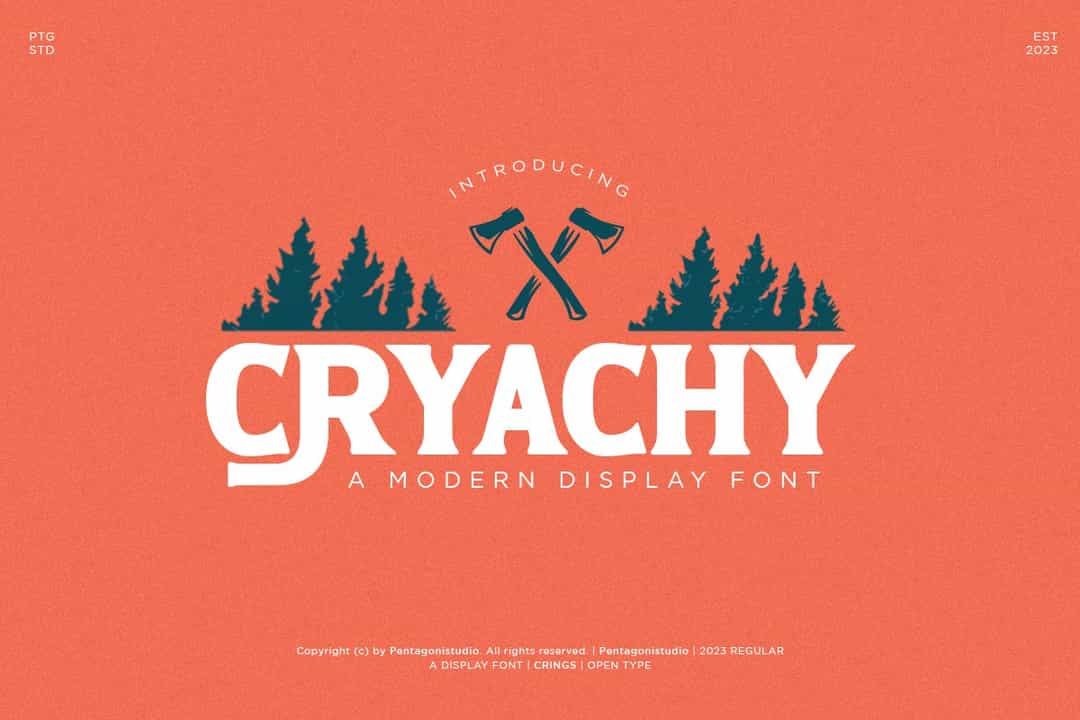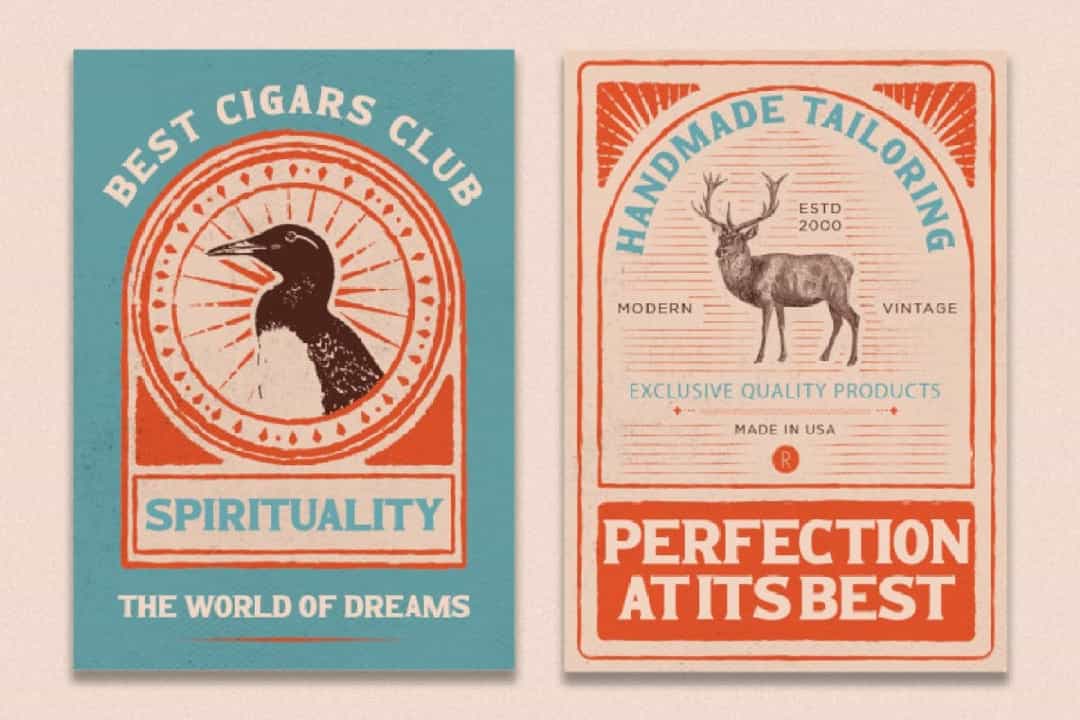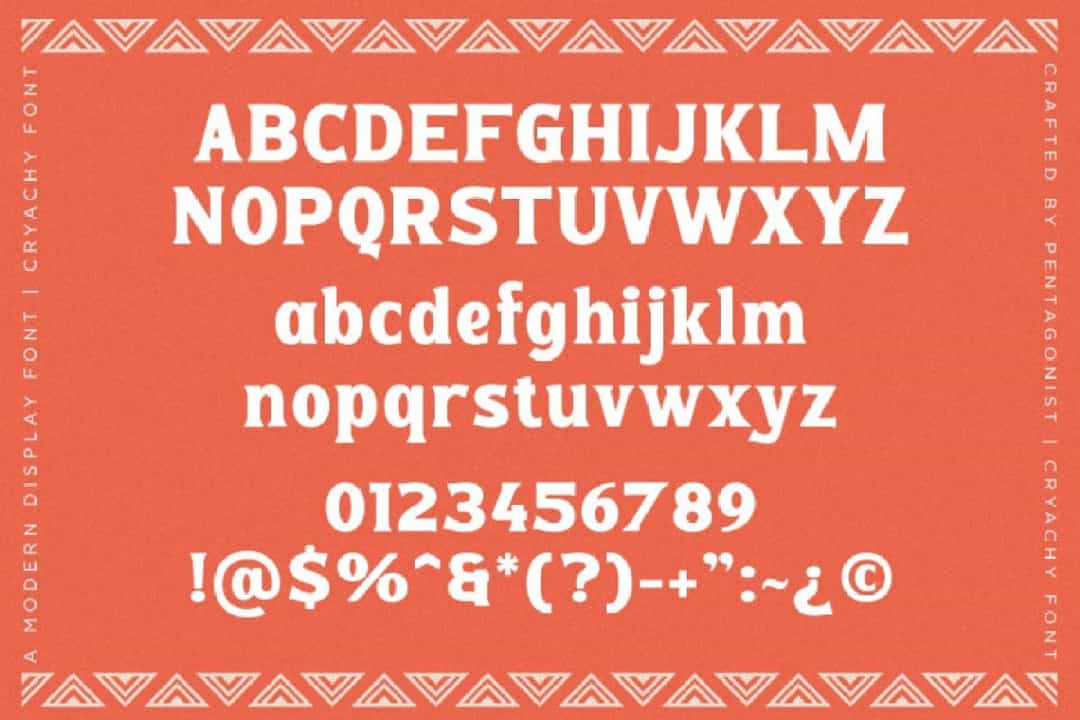
Cryachy, a modern and eye-catching display font, instantly grabs attention with its clean lines, geometric forms, and sharp angles that create an eye-catching display font that draws one in. Nova is one font which represents modern fashion-forward design while Cryachy represents its contemporary spirit.